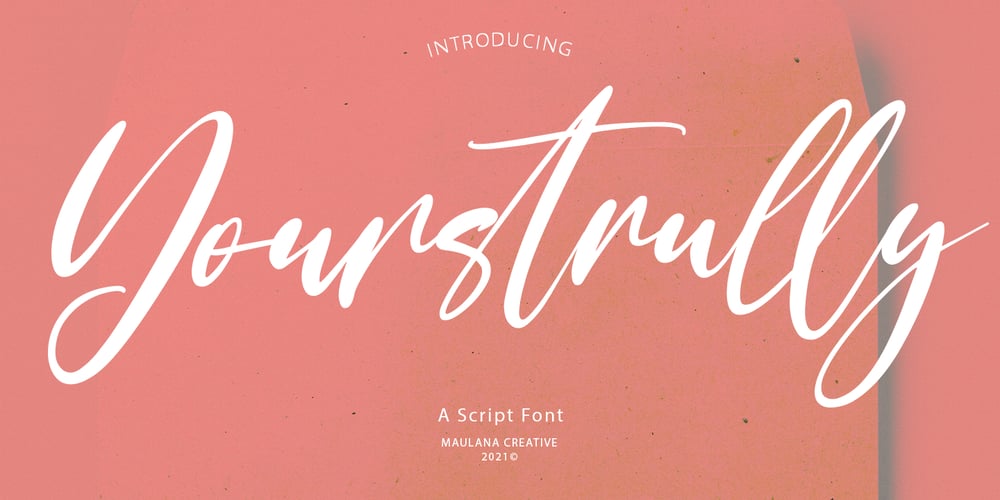
Yourstrully Script
Yourstrully Script font
Yourstrully Script Font Family was designed by Gilang Maulana and published by Maulana Creative. Yourstrully Script contains 1 styles and family package options. Yourstrully is casual script font, with clean contrast stroke, super slanted and fun character. It has Opentype features ligatures of character, To give you an extra creative work. Yourstrully font support multilingual more than 100+ language. This font is good for logo design, Social media, Movie Titles, Books Titles, a short text even a long text letter and good for your secondary text font with sans or serif. Make a stunning work with Yourstrully font.